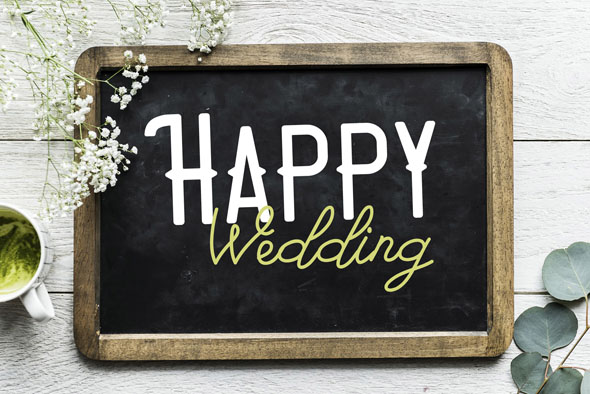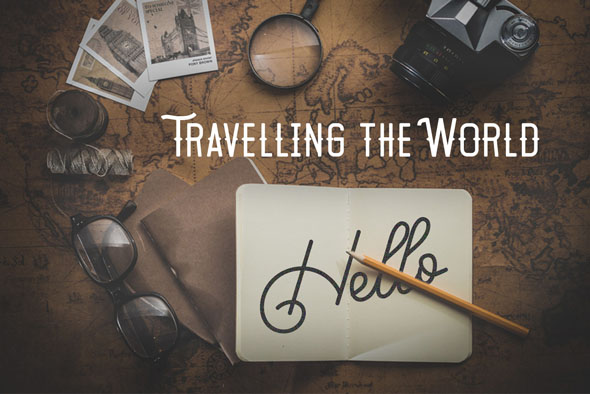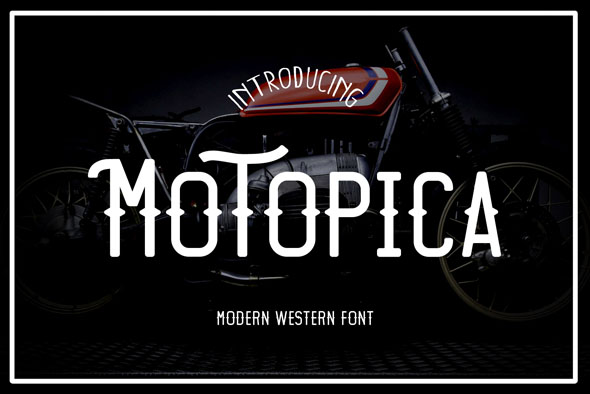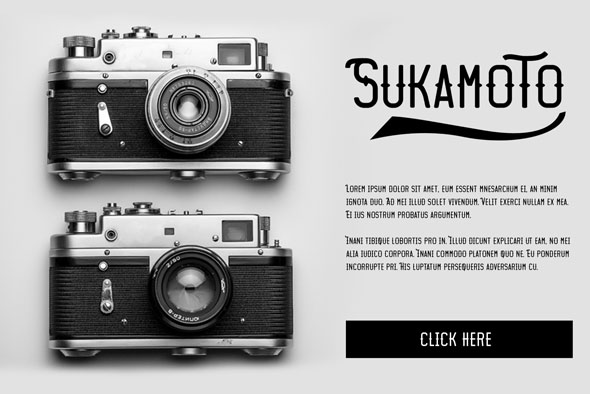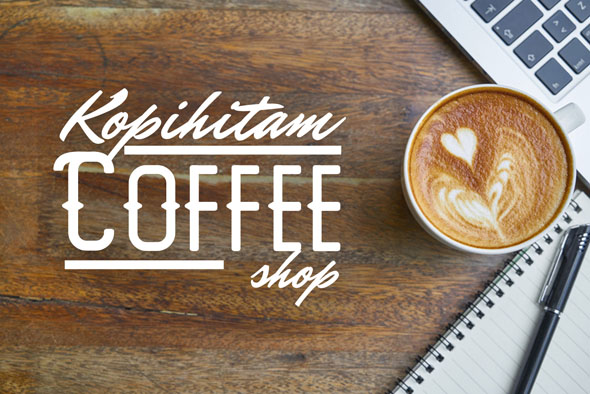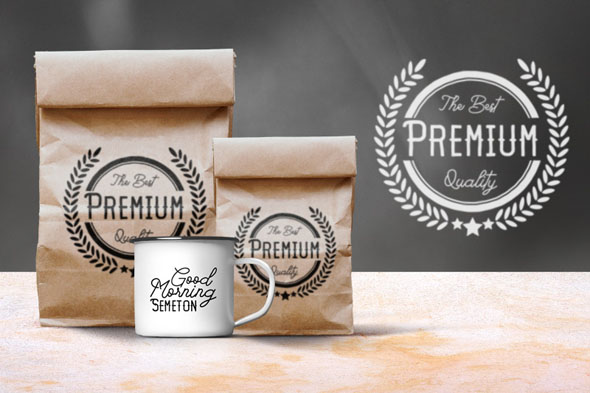
DETAILS Meet my new font Motopica!
Motopica includes full set of lovely uppercase and lowercase letters, multilingual symbols, numerals and punctuation. This is so perfect for Vintage Design Style, Logo, Poster, etc